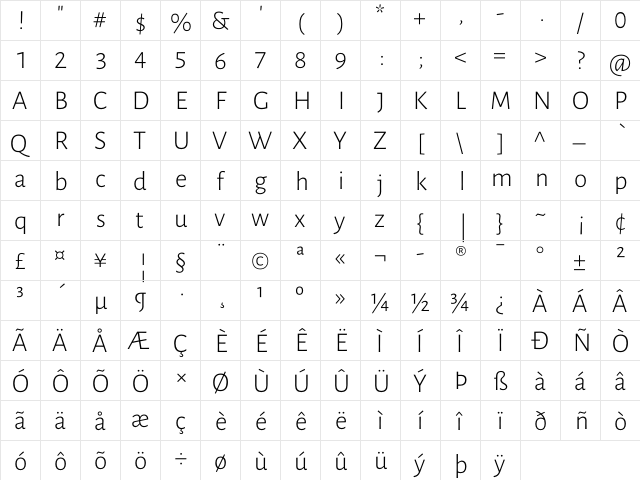
Luna Light Regular
| Foundry | Huerta Tipografica |
| Designer | Juan Pablo del Peral |
Design Context for Luna Light Typeface
Luna Light offers clean, dependable letterforms without strong stylistic allegiance, making it a practical choice for designers who need flexibility. Its slender proportions lend an understated elegance to any composition.
Pro Tip: Pair Luna Light with a font of contrasting weight or personality to build a more expressive typographic hierarchy.